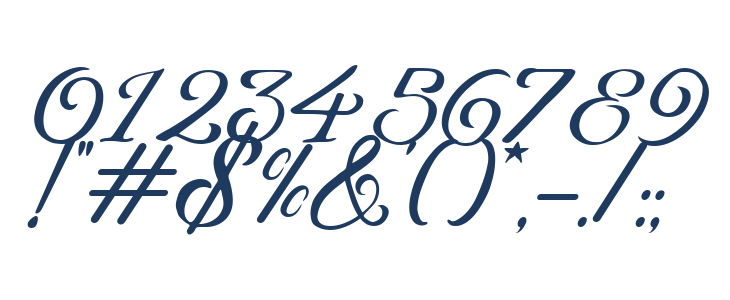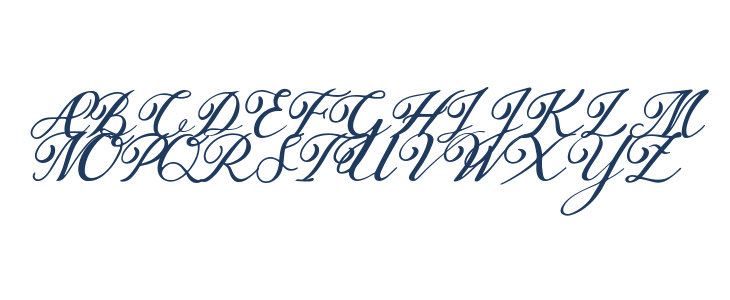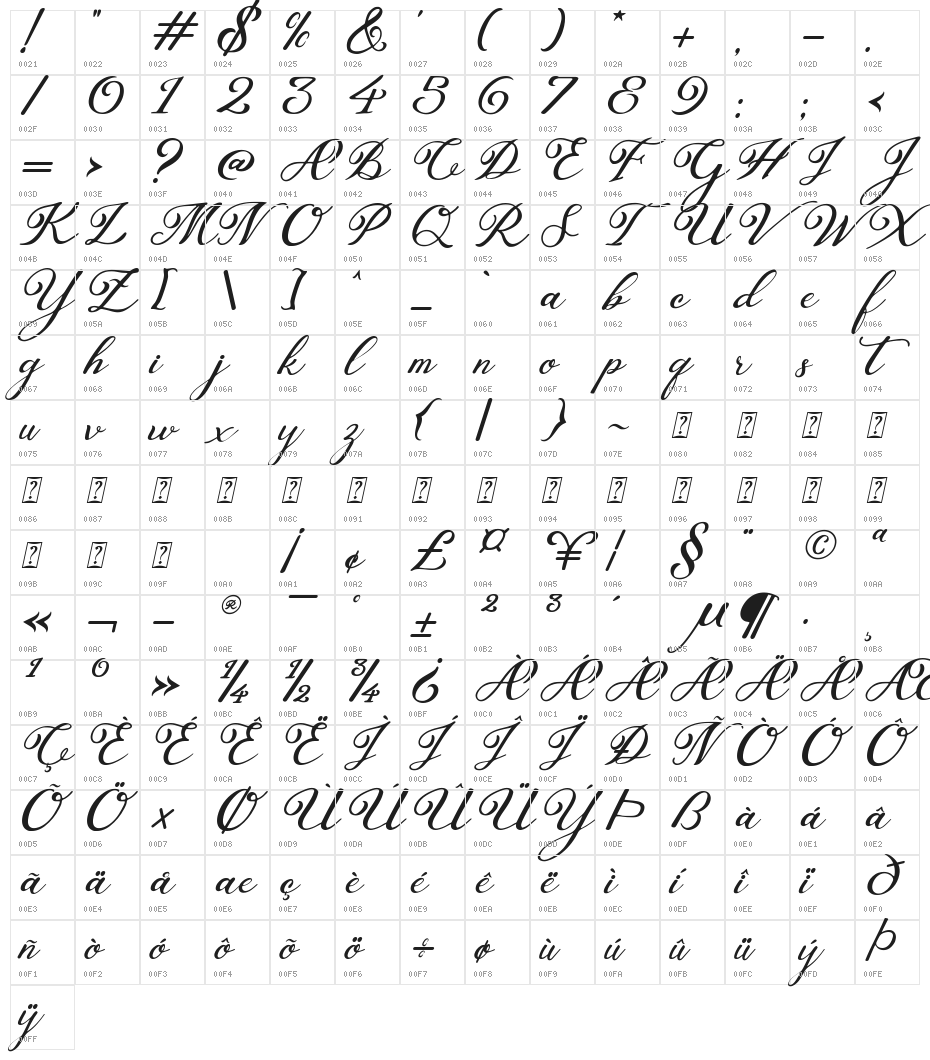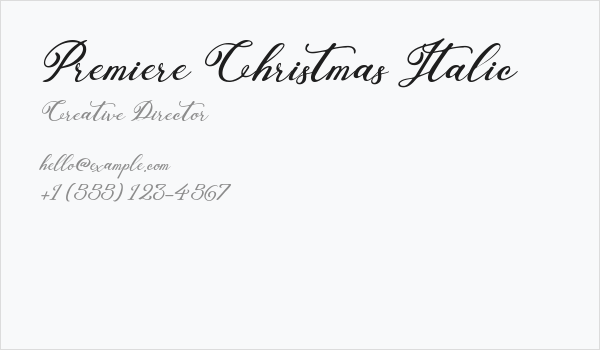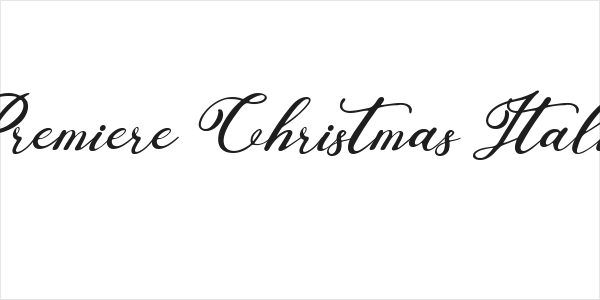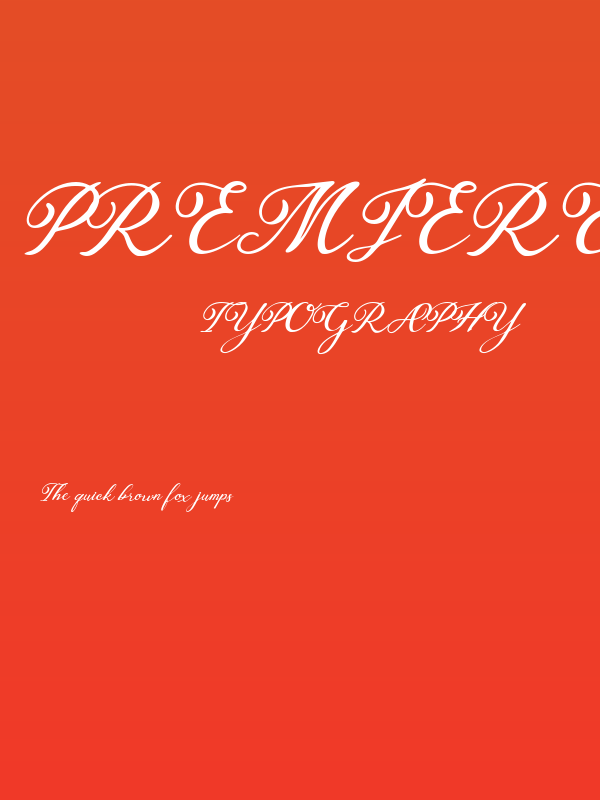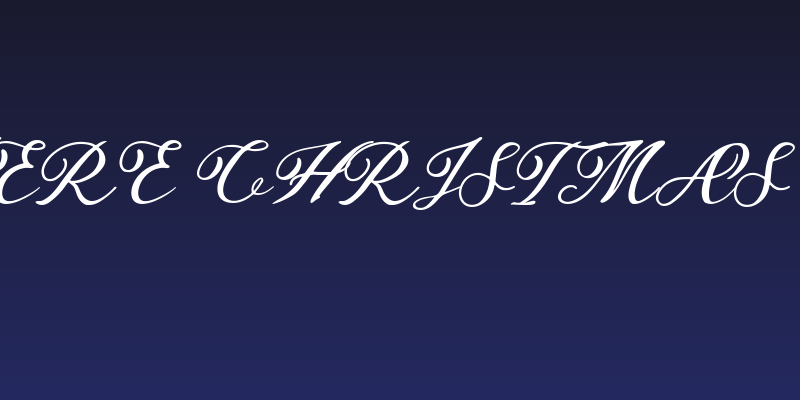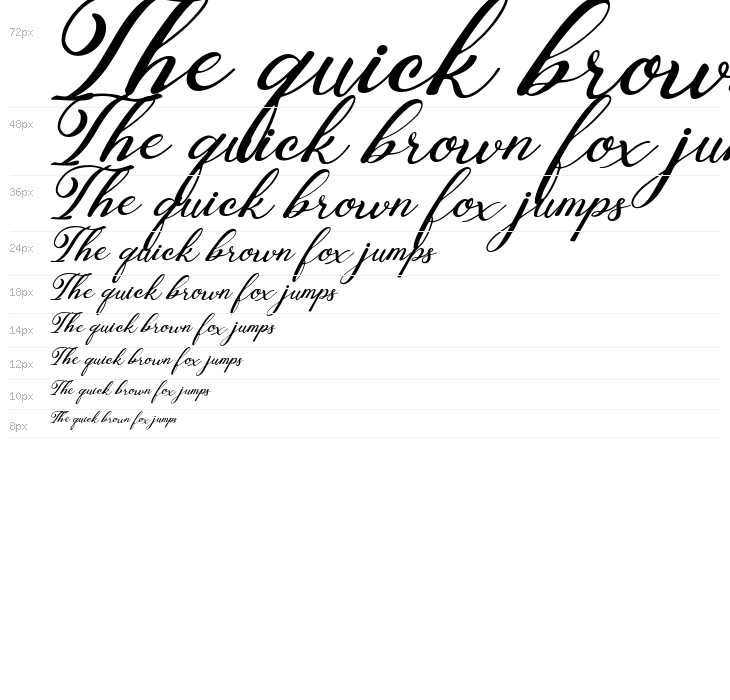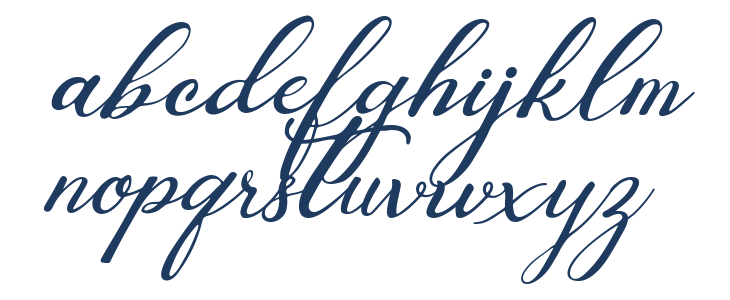
Premiere Christmas Italic Font
Premiere Christmas Italic Description
Elegant, flowing script font with pronounced slant, ornate swashes, and high contrast between thick and thin strokes. Uppercase and lowercase letters are highly stylized with decorative flourishes, evoking a festive and sophisticated feel.
| Overall Style | Decorative, Festive, Elegant |
| Use Case | Headlines, Invitations, Logos, Decorative text |
| Proposed Projects | Holiday cards, wedding invitations, event branding, festive packaging, elegant logos. |